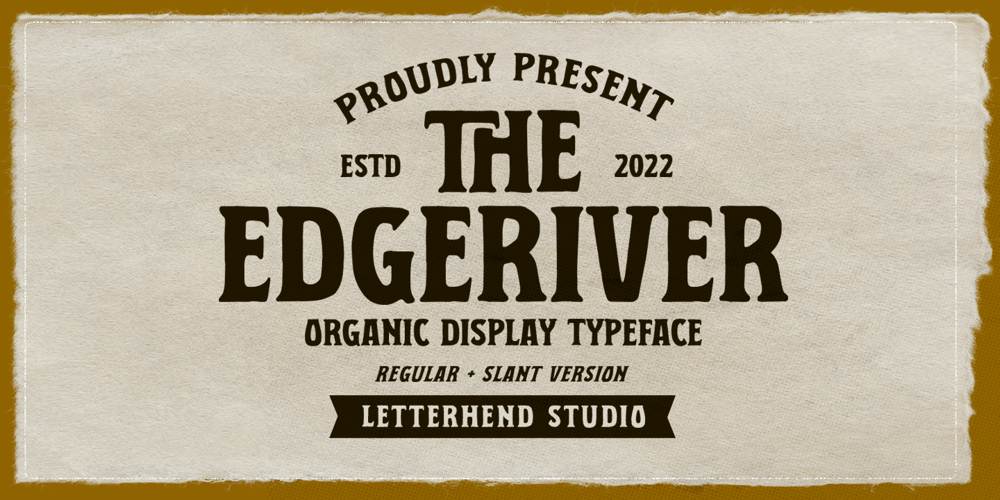
Edgeriver Font Family was designed by Hendry Juanda and published by Letterhend. Edgeriver contains 2 styles and family package options. The Edgeriver is a serif display typeface with a touch of vintage look and feel. it was made hand drawn, so it makes looks more natural. it comes with regular and slant version. This type of font perfectly made to be applied especially in logo, headline, signage and the other various formal forms such as invitations, labels, logos, magazines, books, greeting / wedding cards, packaging, fashion, make up, stationery, novels, labels or any type of advertising purpose.Features : uppercase & lowercase numbers and punctuation multilingual alternates / swashes and ligatures PUA encoded We highly recommend using a program that supports OpenType features and Glyphs panels like many of Adobe apps and Corel Draw, so you can see and access all Glyph variations.